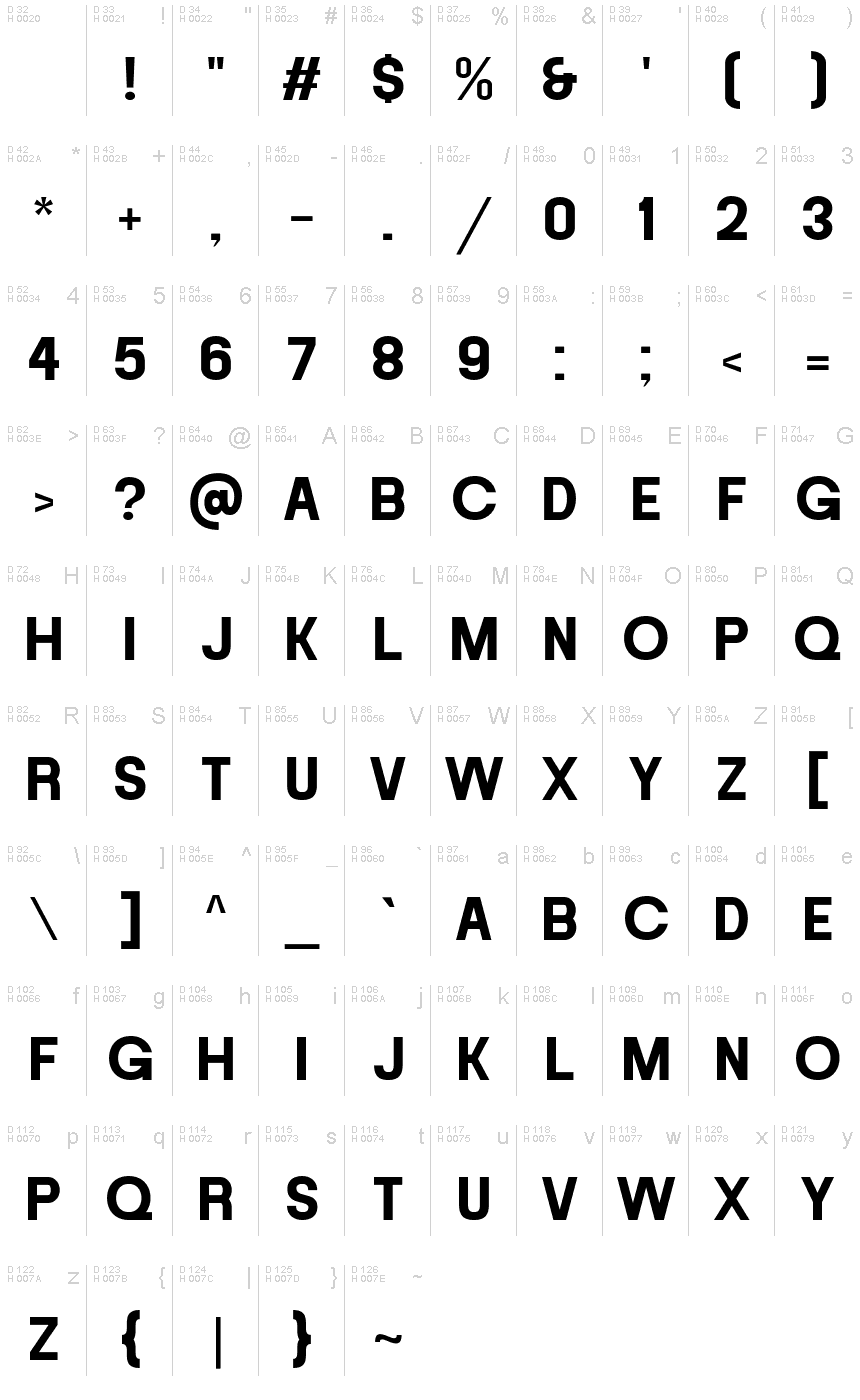
DOGMA, the bold and dynamic sans serif font designed by MJType is here to make a statement. With its semi-expanded width, DOGMA stands out in any project that requires a strong and confident font. Its clean lines and modern design make it perfect for branding materials, such as logos or product packaging. Additionally, DOGMA's boldness makes it suitable for eye-catching headlines or titles in editorial layouts. Whether you're designing a website or creating a brochure, DOGMA will provide the impact you need to capture your audience's attention.
DOGMA DEMO
DOGMA DEMO Regular